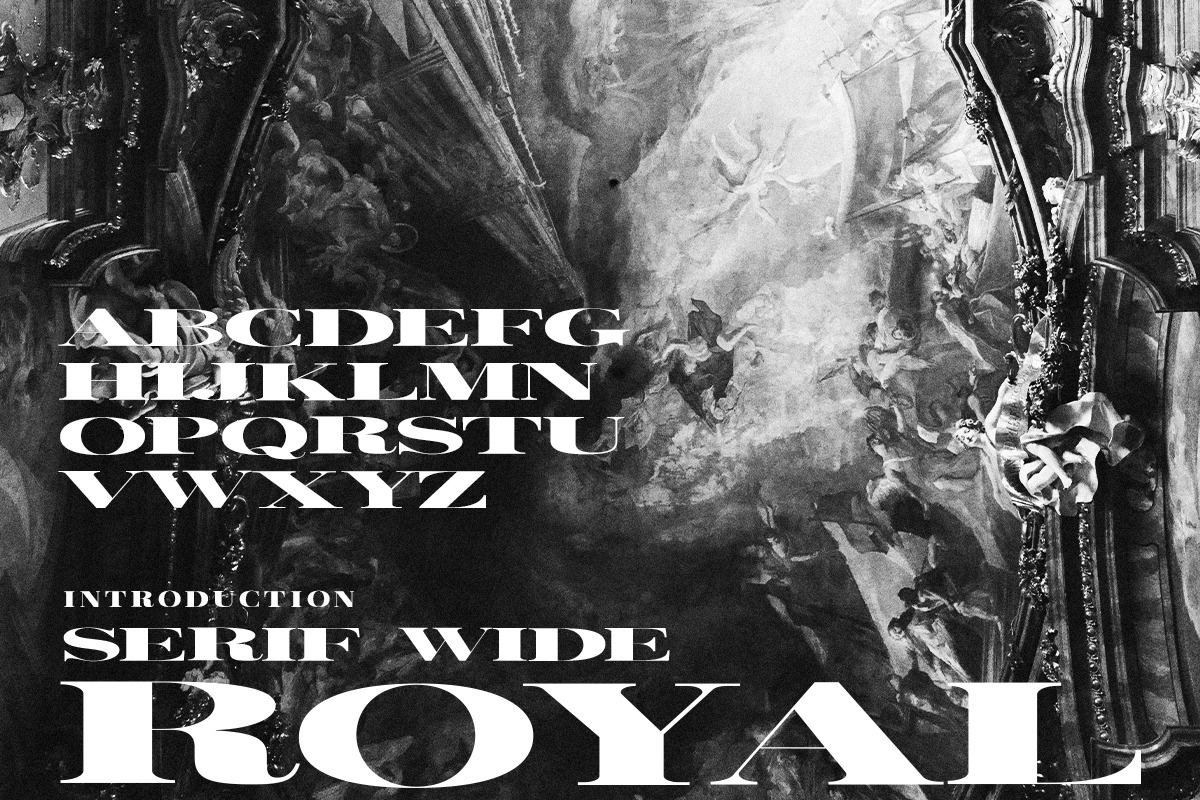
Royal Serif Display Font Free Download is a luxurious and majestic typeface designed to command attention with elegance and grace. Featuring high-contrast strokes, decorative serifs, and a classic yet contemporary style, this font is perfect for upscale branding, wedding invitations, editorial titles, packaging, and luxury logos.
Its refined structure adds a regal feel to every design, making it ideal for projects that need sophistication and visual impact. Whether you're creating a fashion magazine cover or a boutique brand identity, Royal Serif brings timeless beauty to the page.